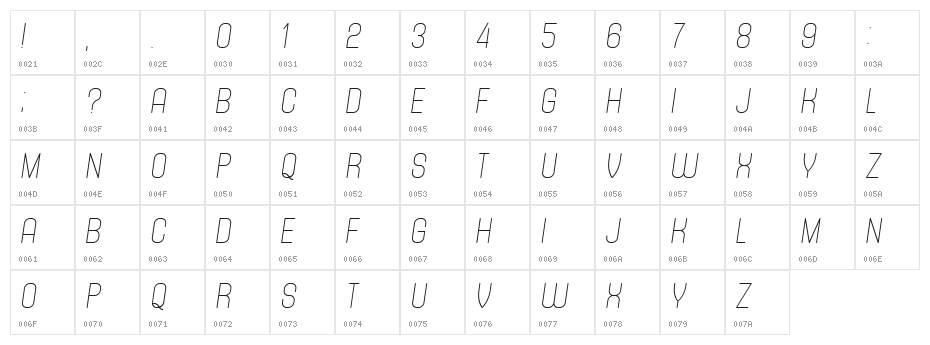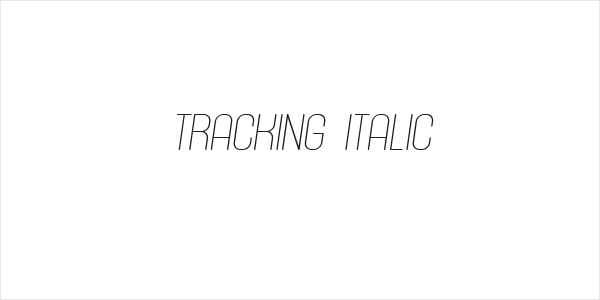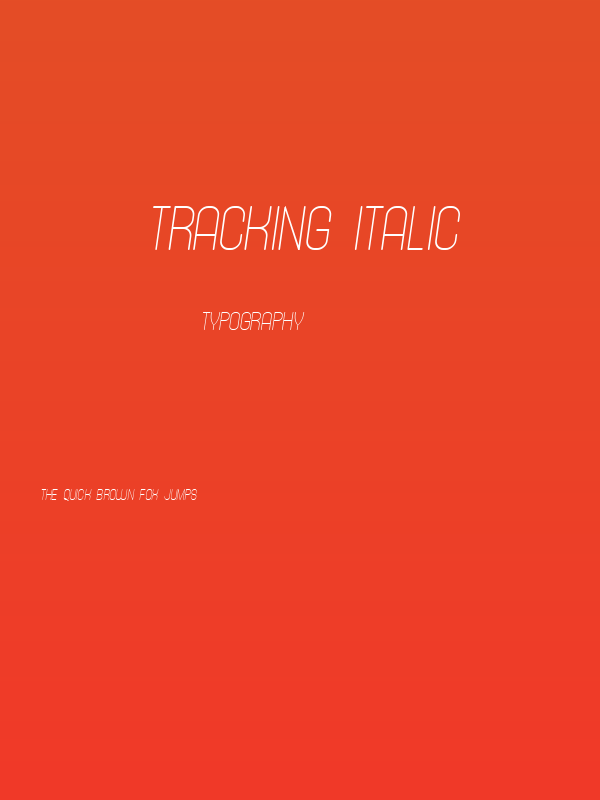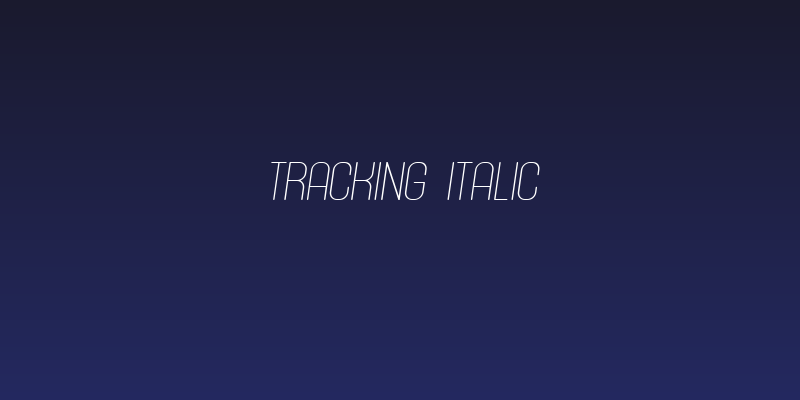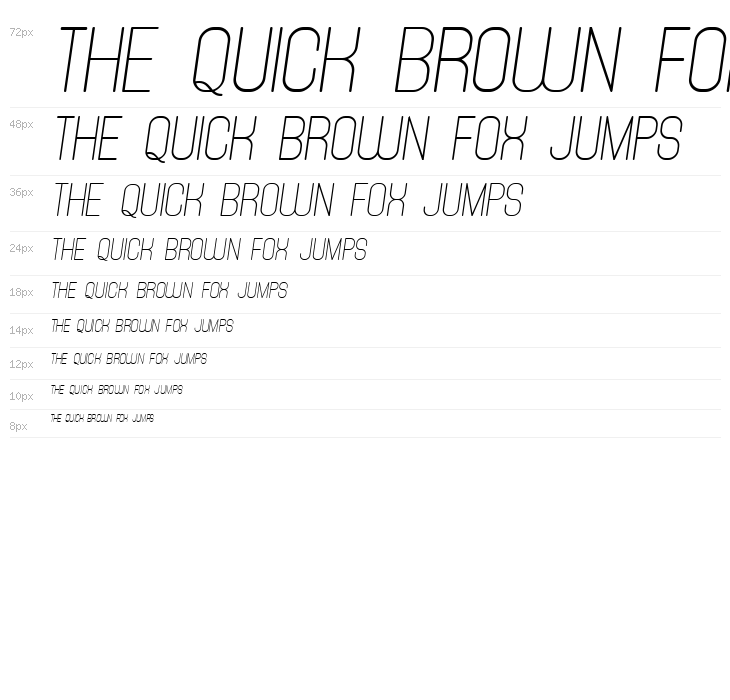
Tracking Italic Font
Tracking Italic Description
This font features a sleek, italicized style with elongated, narrow characters that convey a sense of motion and modernity. The letters are consistently slanted, giving the typeface a dynamic and forward-leaning appearance. The strokes are thin and uniform, contributing to a clean and sophisticated look. The overall design is minimalistic, with a focus on clarity and readability despite the italic slant. The numerals and special characters maintain the same stylistic approach, ensuring a cohesive appearance across all glyphs.
| Proposed Projects | Ideal for modern branding, fashion magazines, dynamic posters, and sleek website headers. |